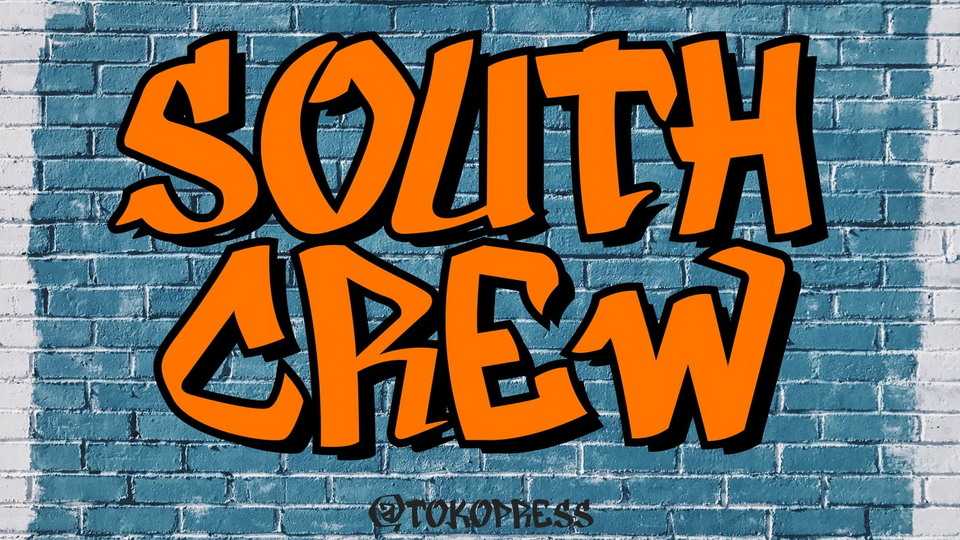
Download South Crew font, a graffiti typeface. South Crew is suitable for hip-hop, rebellious and extreme sport segmented magazines, posters, movie titles, music posters and so on…